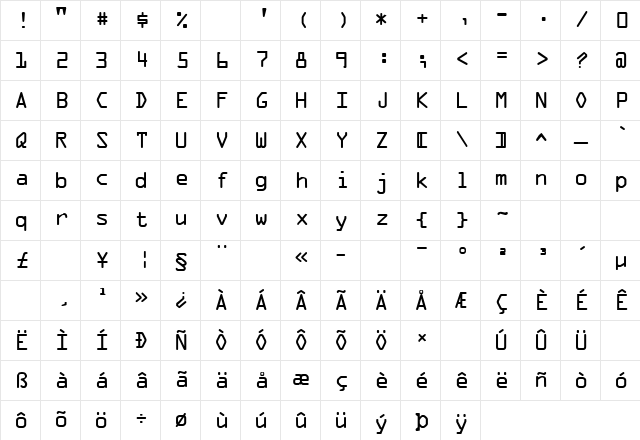
STALKER1 Regular
Design Context for STALKER1
STALKER1 is a composed and adaptable typeface that performs quietly and consistently across a wide range of design contexts.